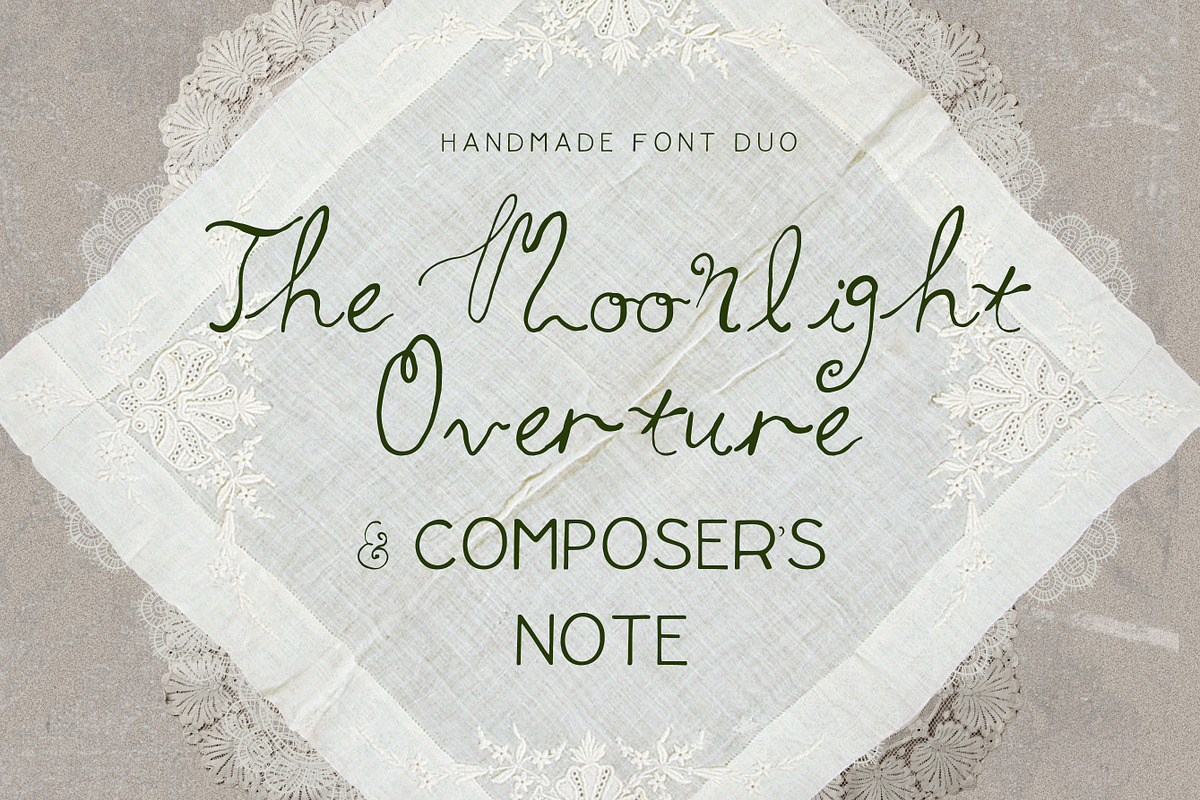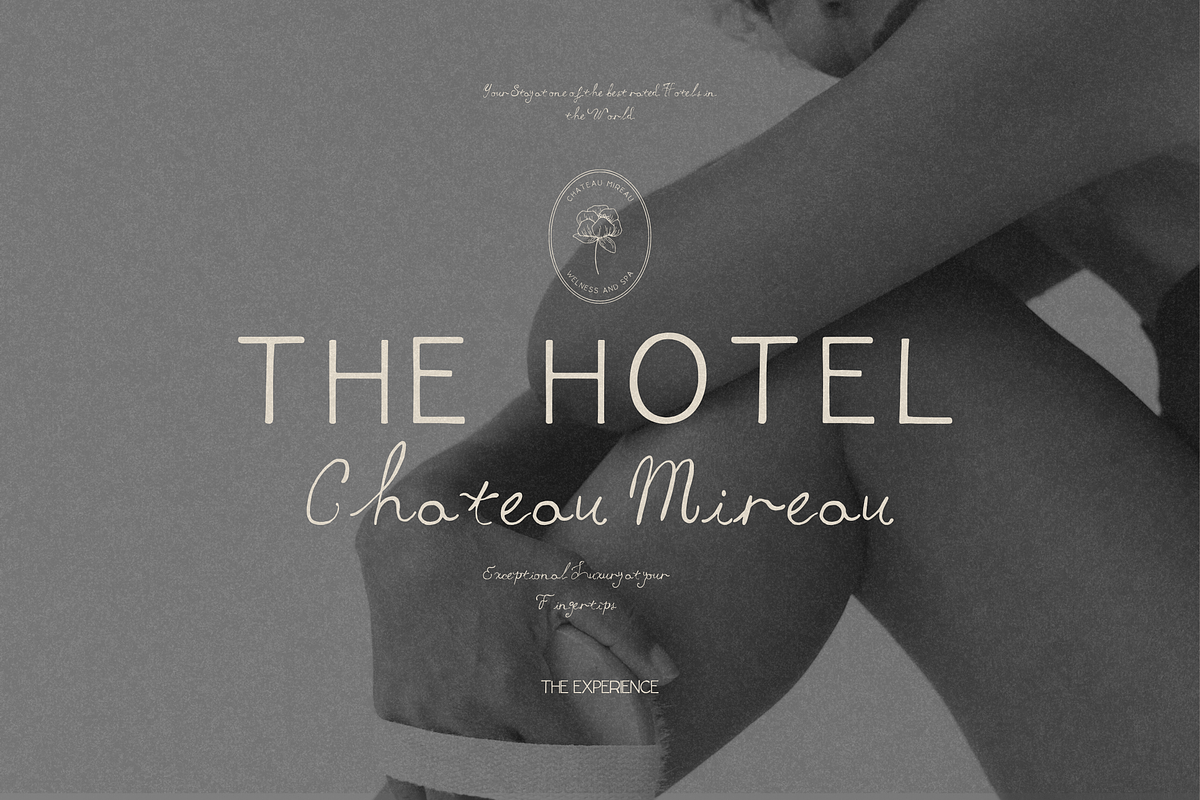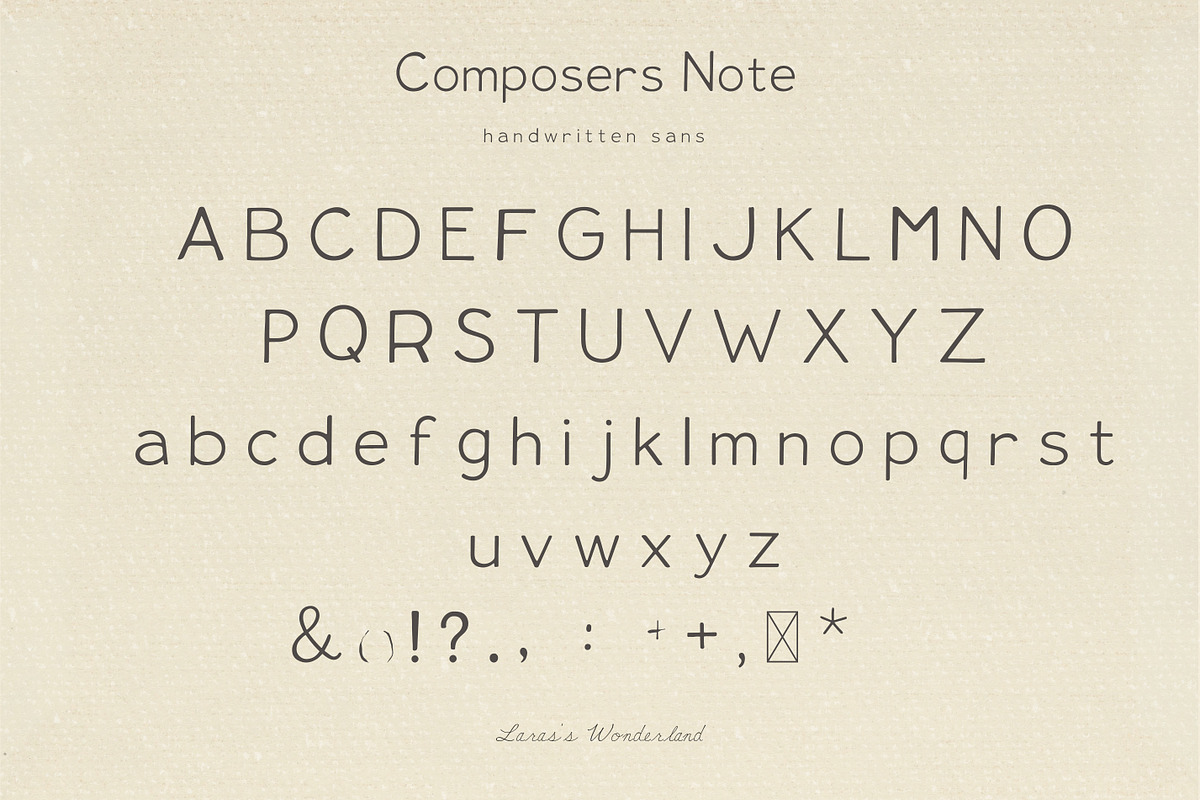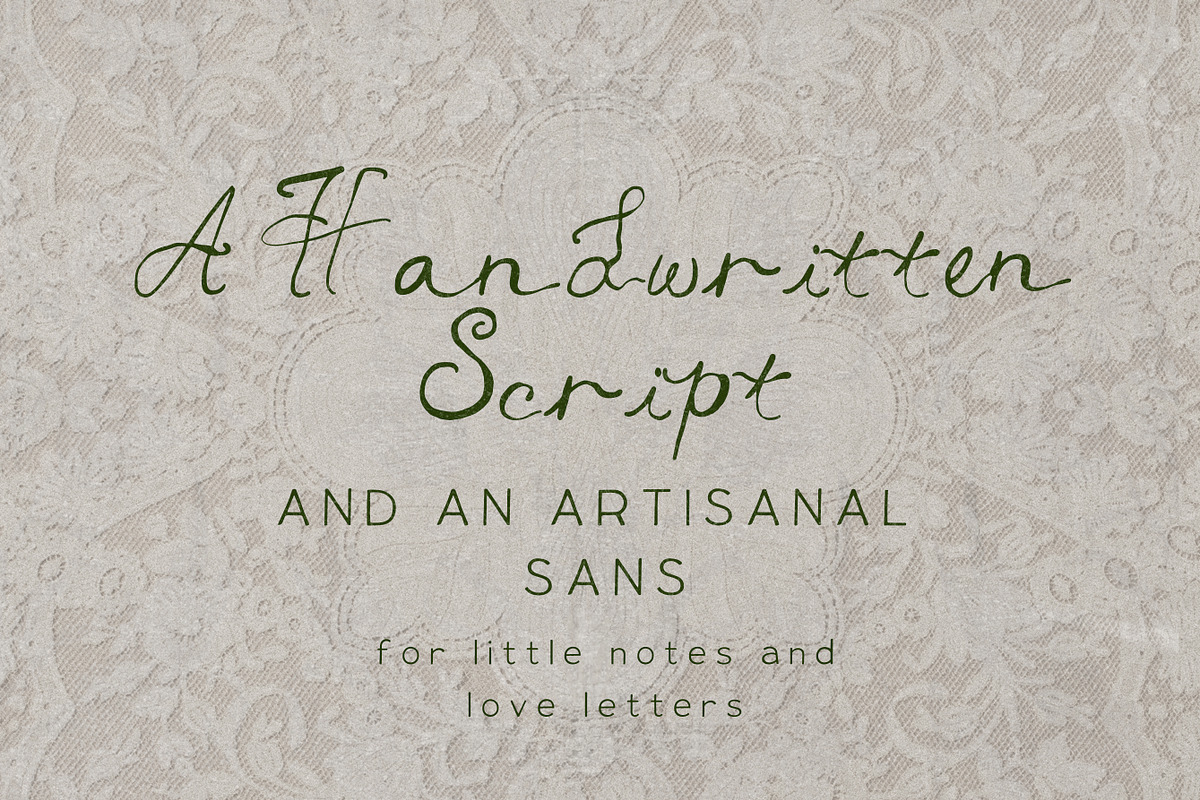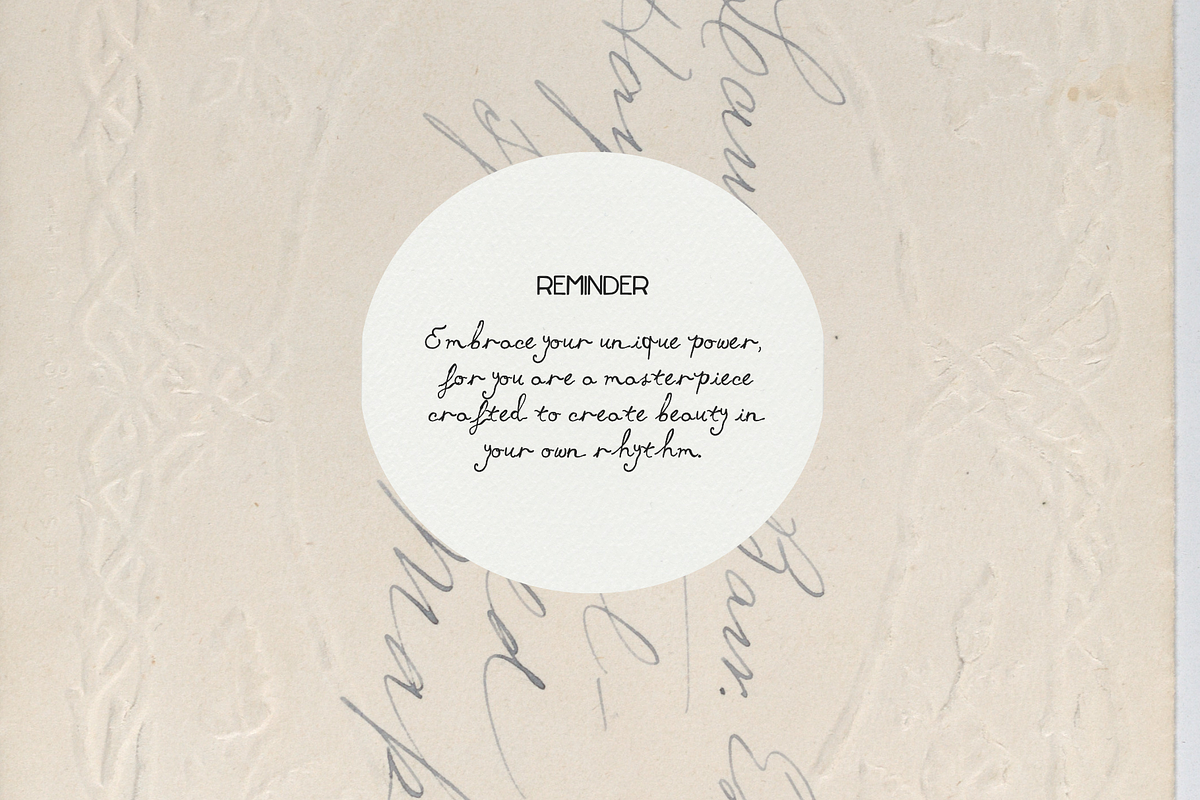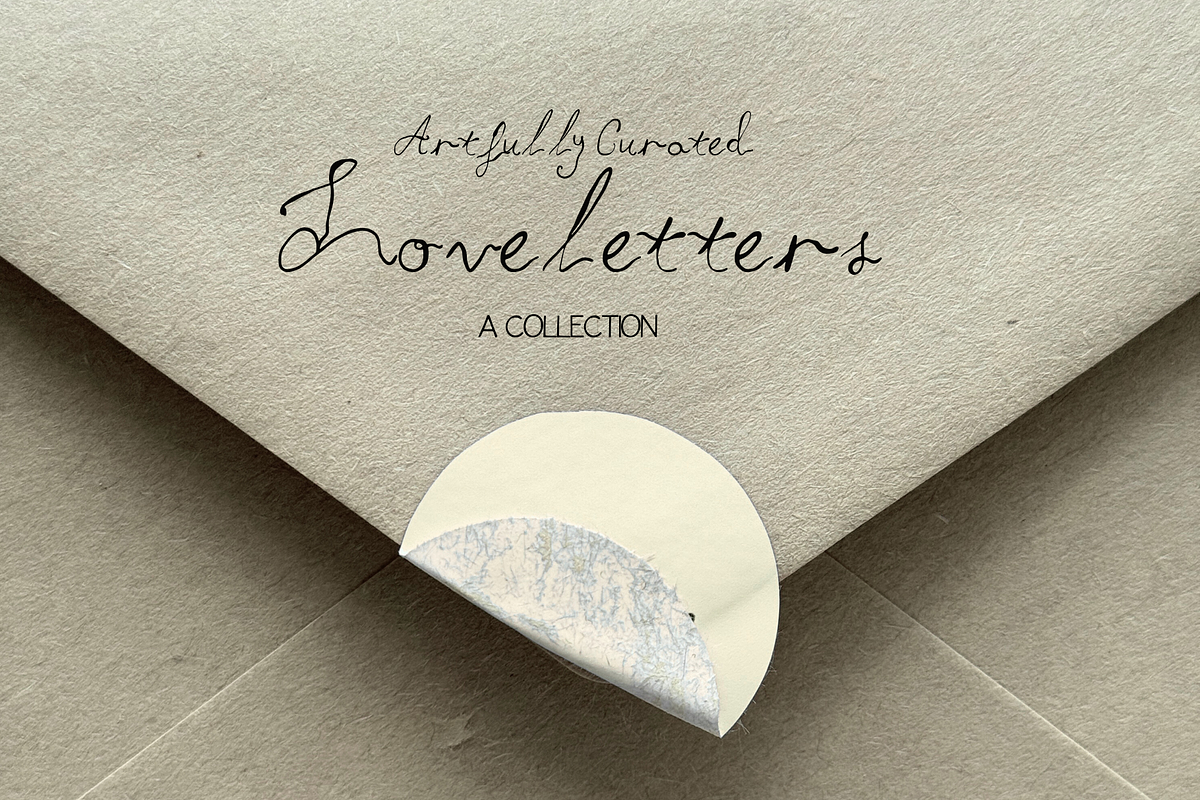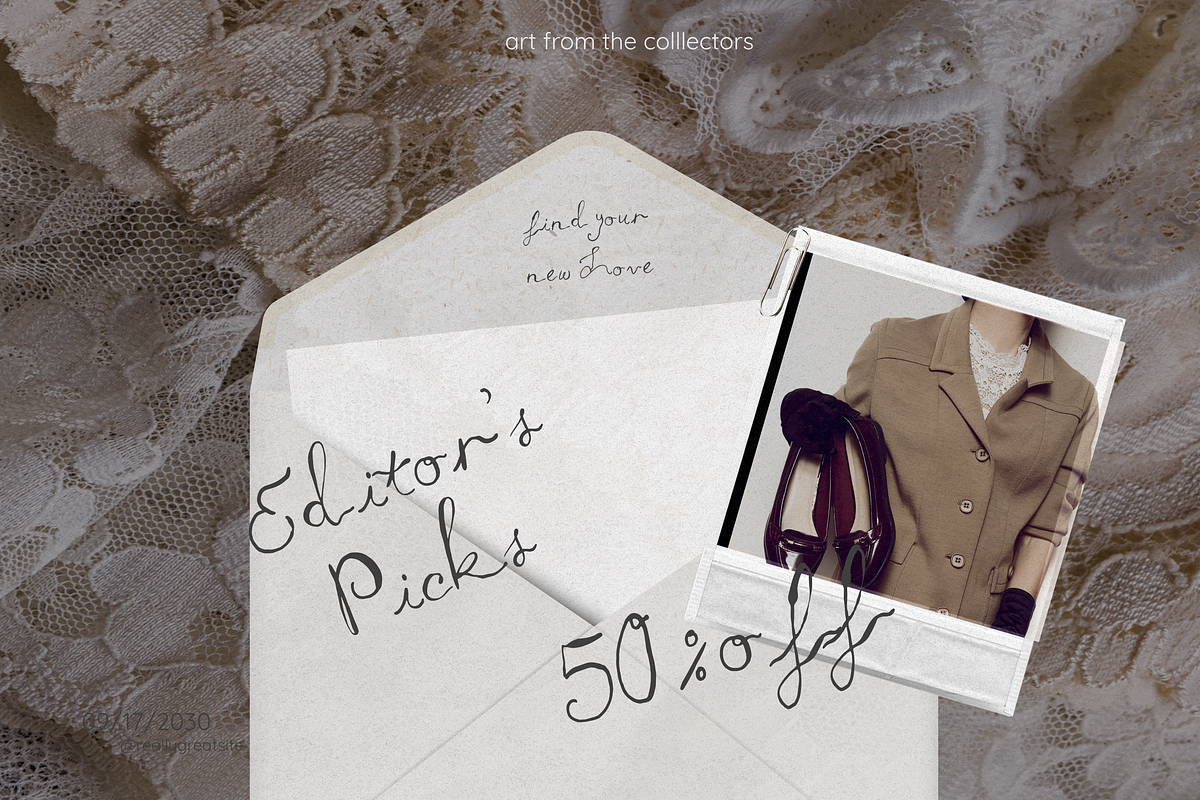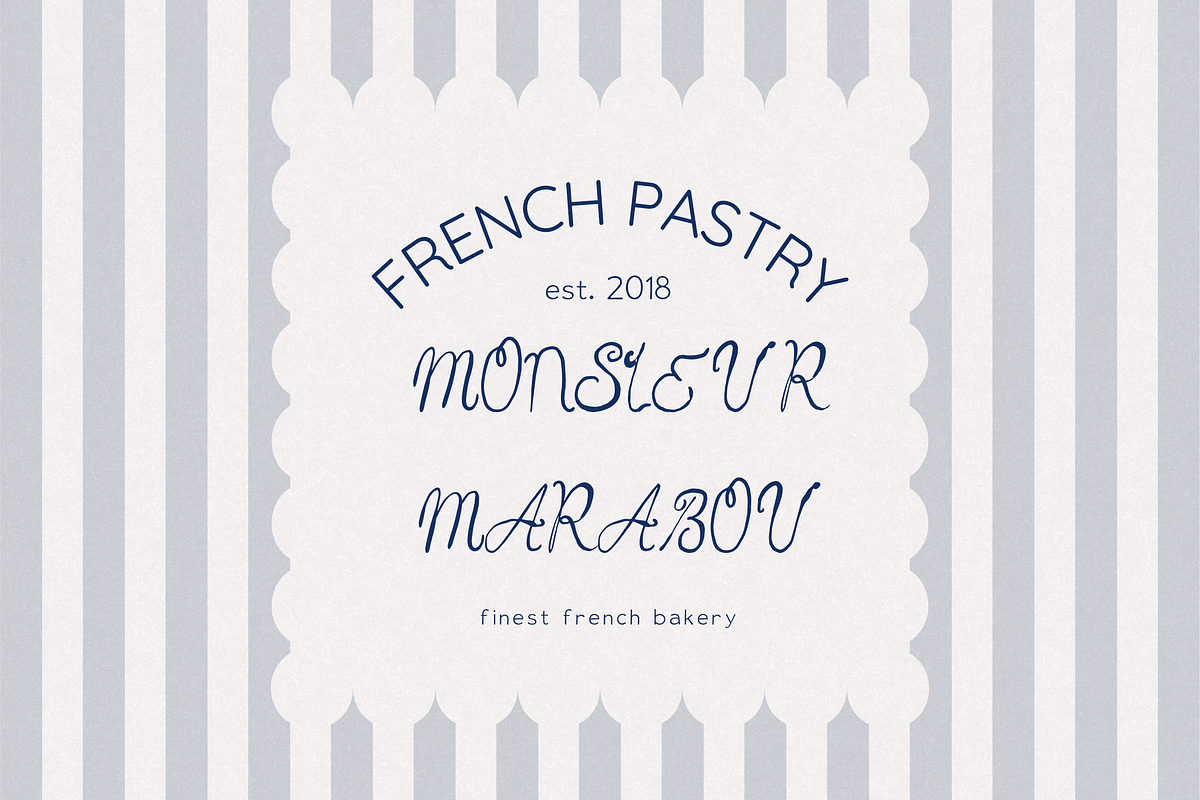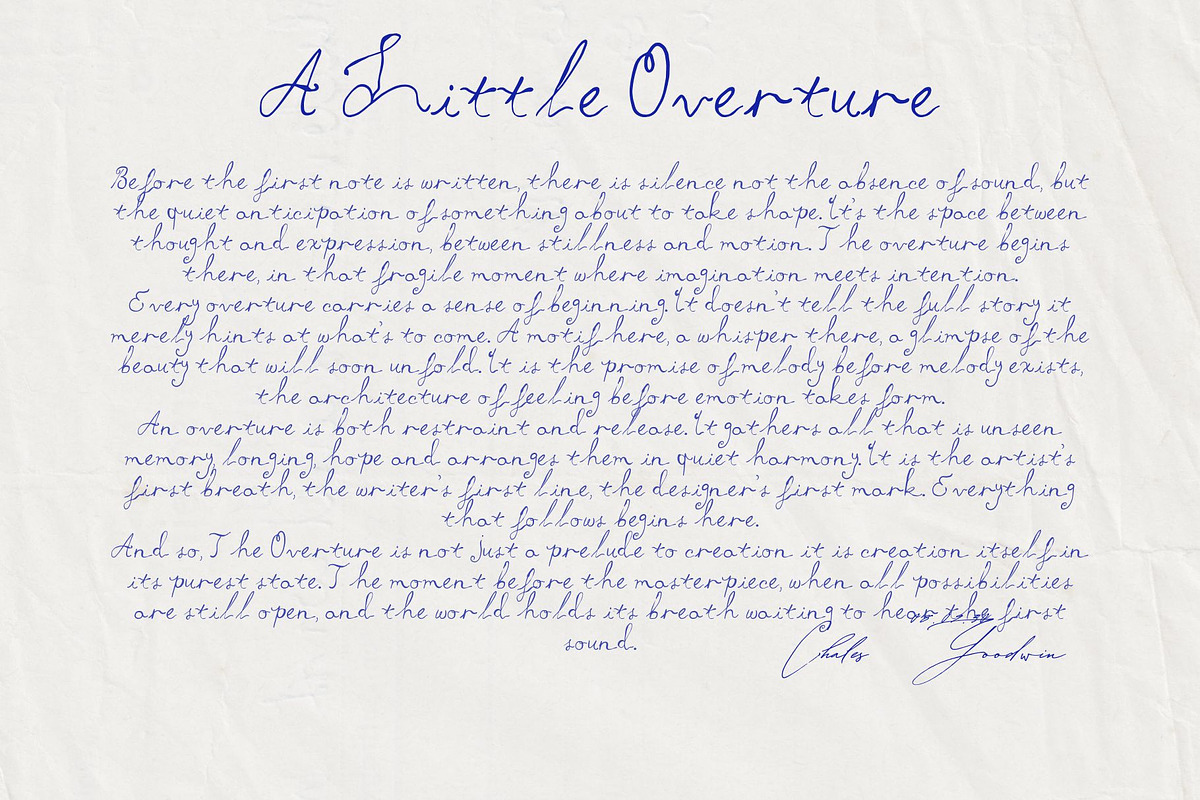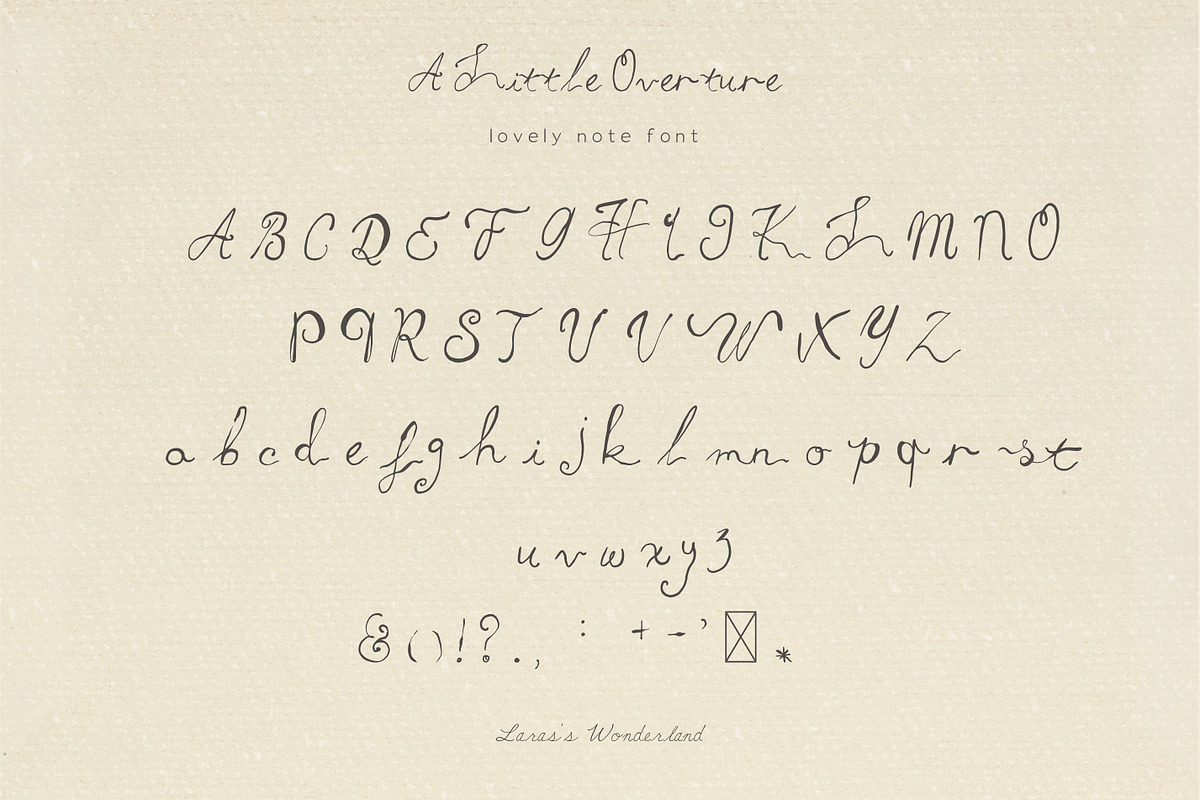
Artistic Vintage Script and Sans Duo
Welcome Overture and Composer's Note, an artfully handwritten script and sans font duo that captures the graceful eloquence of Inspired by the rhythm of classical music and the beauty of artisan handwriting, this pair blends expressive sophistication with understated simplicity.
Overture brings fluid, poetic movement to logos, invitations, packaging, and editorial designs, while Composer’s Note offers a minimal handwritten sans that balances every flourish with calm precision.
Use this duo to craft visual stories that speak with elegance, emotion, and personality. Whether for branding, stationery, or digital design, Overture and Composer’s Note elevate every project with a refined, handcrafted touch.